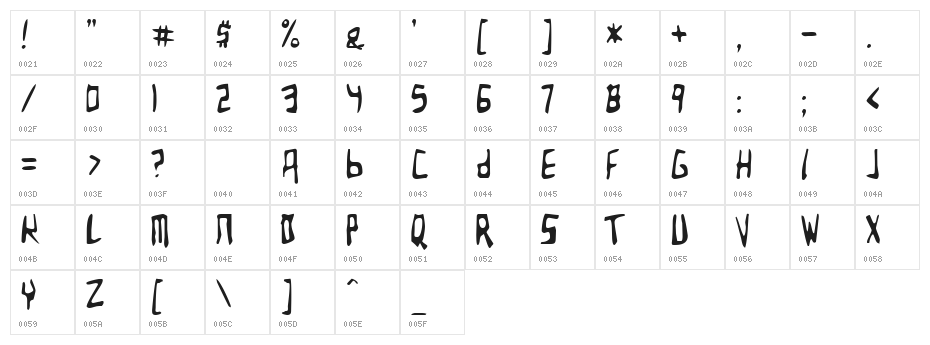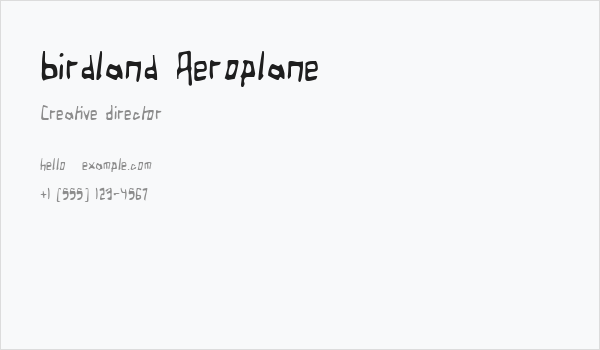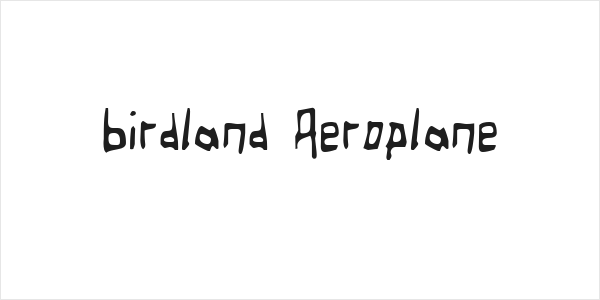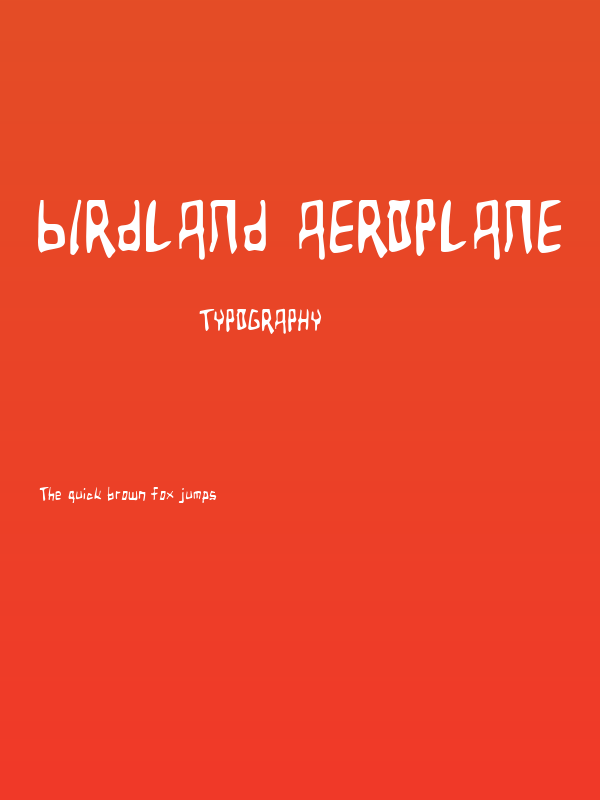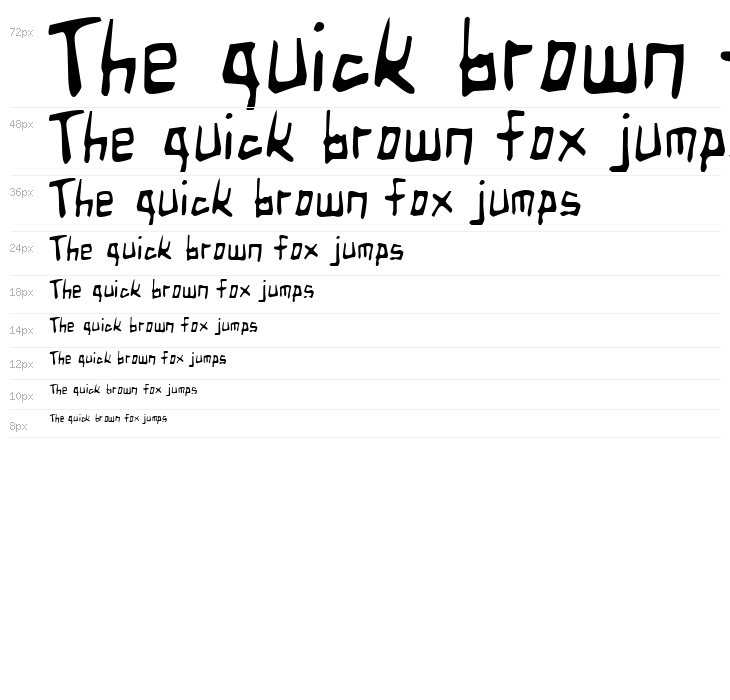
Birdland Aeroplane Font
Birdland Aeroplane Description
This font features a bold and playful design with irregular, hand-drawn characteristics. The letters have a quirky, uneven appearance, giving them a dynamic and energetic feel. The strokes are thick and vary in width, adding to the font's unique and artistic style. The uppercase and lowercase letters maintain a consistent style, with the uppercase being slightly more angular. Numbers and special characters follow the same playful theme, making this font suitable for creative and informal projects.
| Use Case | Logos, Posters, Creative projects |
| Proposed Projects | Ideal for children's books, comic strips, playful branding, and creative posters. |